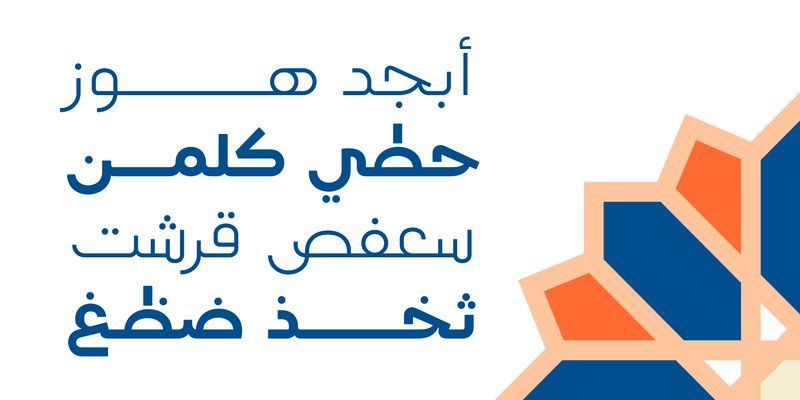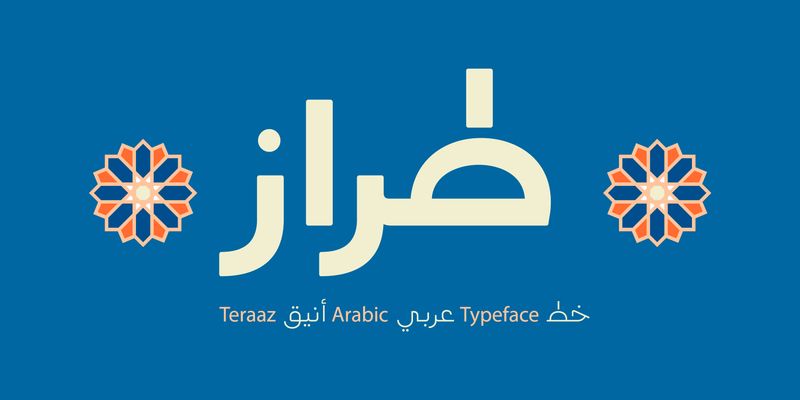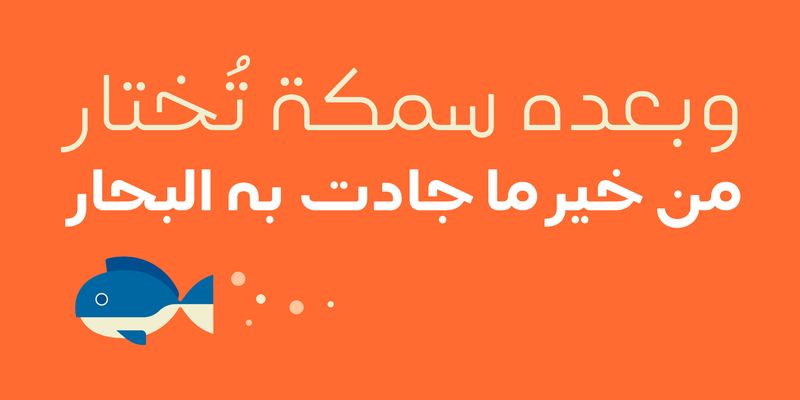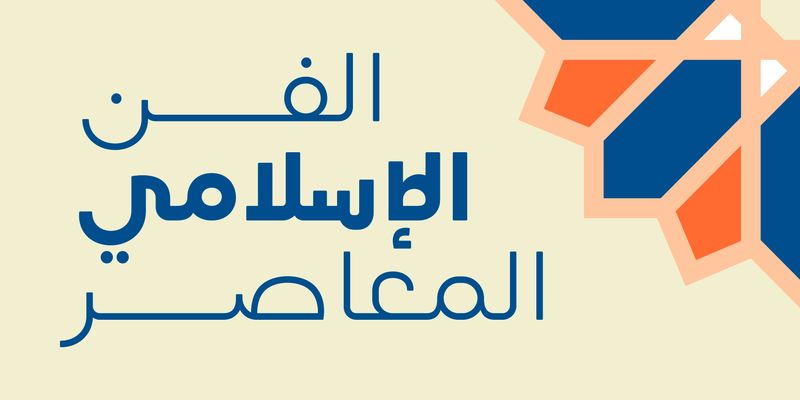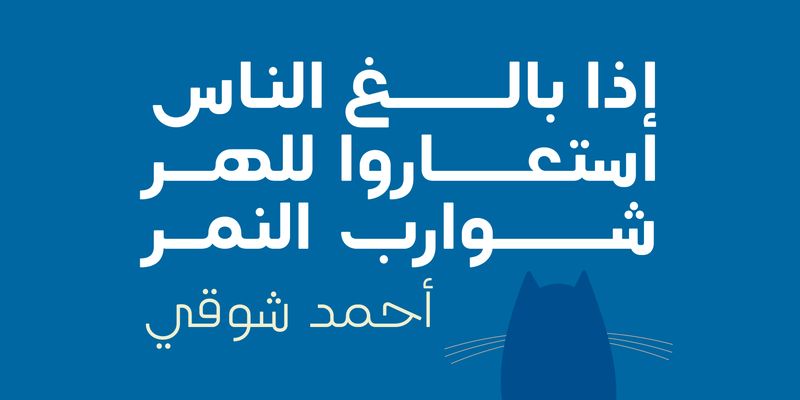
Teraaz (Arabic for “Style”) was born from the meeting point of three worlds-Kufic’s structure, Maghrebi’s rhythm, and Naskh’s graceful flow. Each letter carries traces of these traditions, woven together into a contemporary voice that feels both familiar and refreshingly new.
Crafted for designers who want their work to speak with character, Teraaz brings presence to every setting-from bold headlines on the web to refined layouts in print and UI/UX experiences.
With Regular and Bold weights, it adapts effortlessly, offering a balance of heritage and modernity that enriches any creative journey.
Mostafa El Abasiry is an independent Arabic type designer whose work has helped define a new era of expressive Arabic typography. Since 2009, he has built a distinctive and influential catalogue of Arabic typefaces known for their bold geometry, modern aesthetics, and emotionally resonant visual character. His designs are widely recognized for merging the structural clarity of geometric construction with the creative freedom of contemporary display typography.
Mostafa’s approach is rooted in a balance of mathematical precision and artistic intuition. Many of his typefaces begin as geometric studies - circles, arcs, grids, and modular systems, before evolving into expressive display families with strong visual identity. Other designs explore texture, layering, and experimental forms, expanding the expressive potential of Arabic letterforms in digital environments.
In 2017, Mostafa introduced Tajreed, the first Arabic OpenType‑SVG color font ever created. This pioneering work brought textured, multi‑layered Arabic typography into mainstream digital use and opened a new category of expressive Arabic tools for designers and everyday creators. Tajreed later grew into a broader ecosystem of textured and experimental families that influenced how Arabic typography appears in mobile apps, creative platforms, and user‑generated content.
Mostafa’s typefaces have been used by a wide range of clients, from global brands such as Apple TV+ and Turkish Airlines to millions of everyday creators. Despite this reach, his design process remains deeply personal: every typeface begins with hand‑drawn sketches, geometric construction, and a search for a unique visual voice rooted in Arab visual culture.
Today, Mostafa continues to expand his catalogue with new display families, textured experiments, and modern interpretations of Arabic typographic heritage. His work aims to give designers and creators expressive tools that did not exist before - tools that make Arabic typography feel bold, modern, and alive.